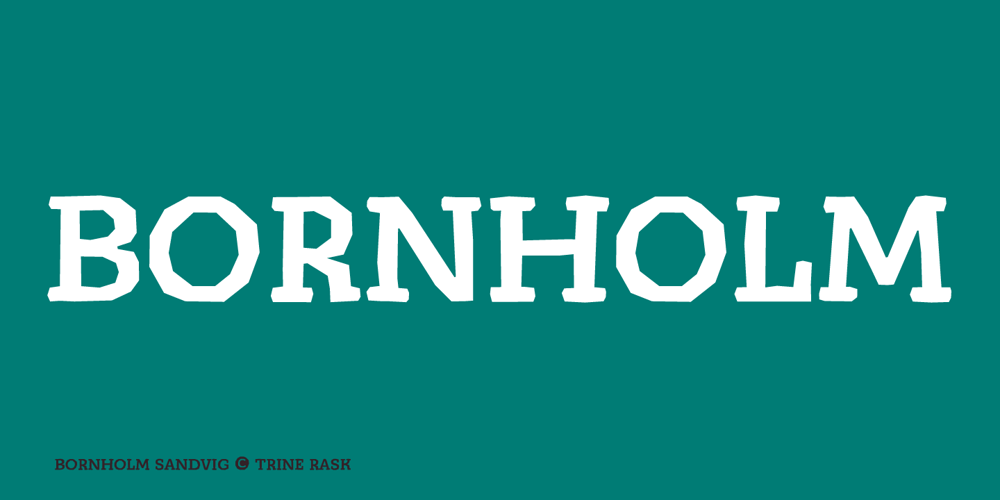
Bornholm Sandvig Font Family was designed by Trine Rask and published by Trine Rask. Bornholm Sandvig contains 2 styles and family package options. Bornholm Sandvig is named after the village, “Sandvig”, on the only rocky island in Denmark, Bornholm. It is the second face in a series of rough stone cut typefaces, that shares proportions, but differs in any other aspect like different pieces of rock. It is a powerful face, but still very friendly. Good for very big sizes, but can be used for small texts, movie titles, cartoons, etc.